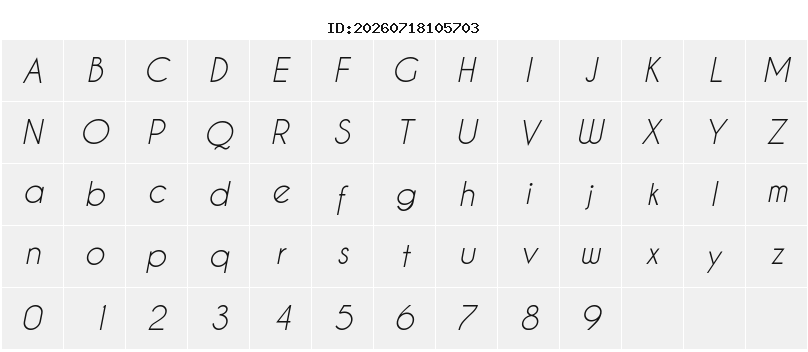
• Font Name: Caviar Dreams
• Designer: Lauren Thompson
• Description: A geometric sans serif wirh a dastardly angled lowercase letter e, and those w's with those lovely letter lumps. Extreme round overshoot may be disturbing to some viewers. Viewer discretin is advised.
Caviar Dreams.ttf is a modern, elegant sans-serif font designed for ultimate readability and visual harmony. Perfect for branding, headlines, web design, and print materials.